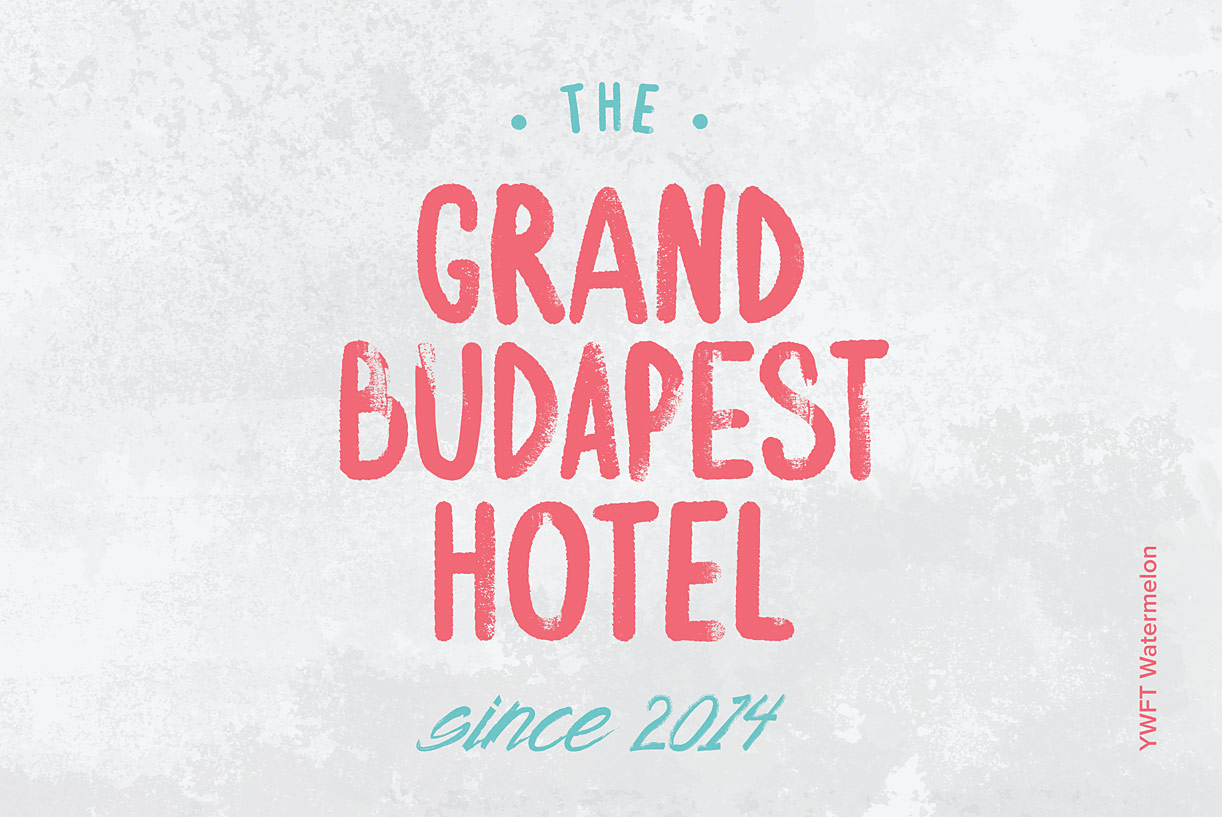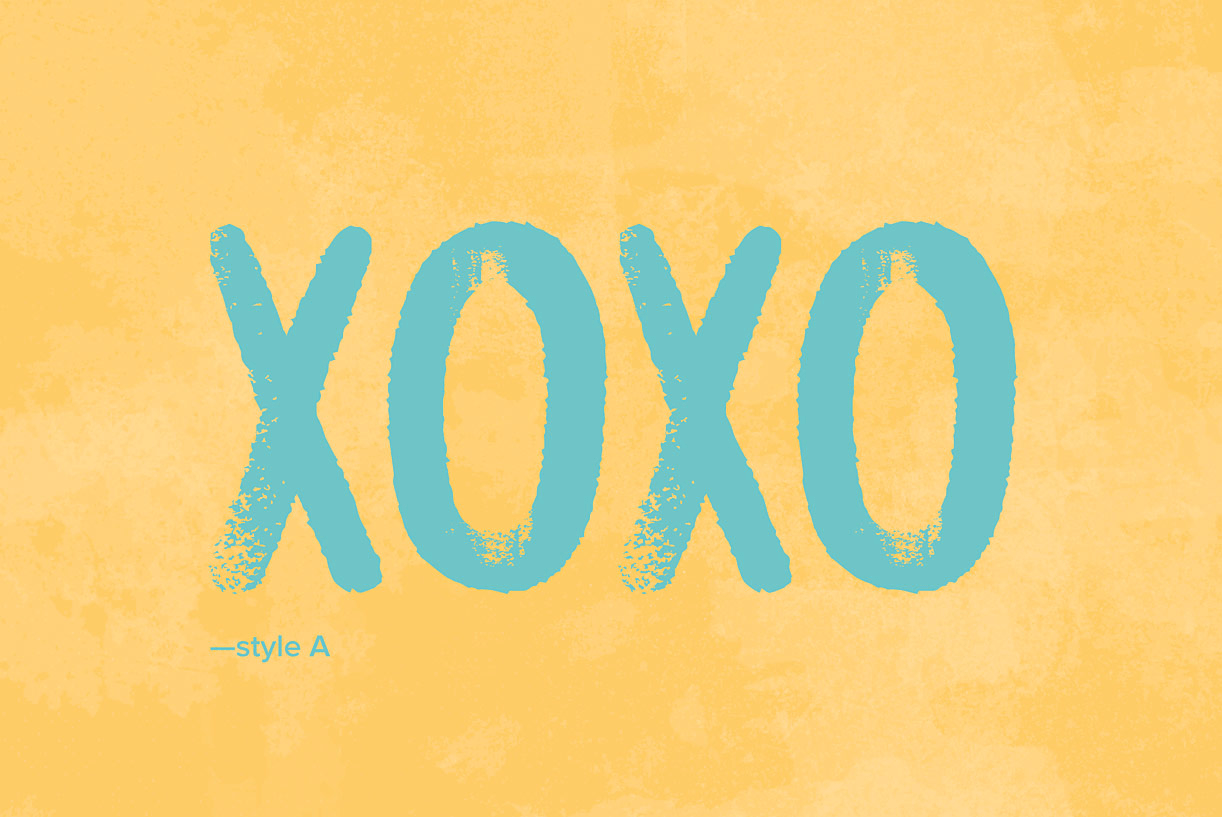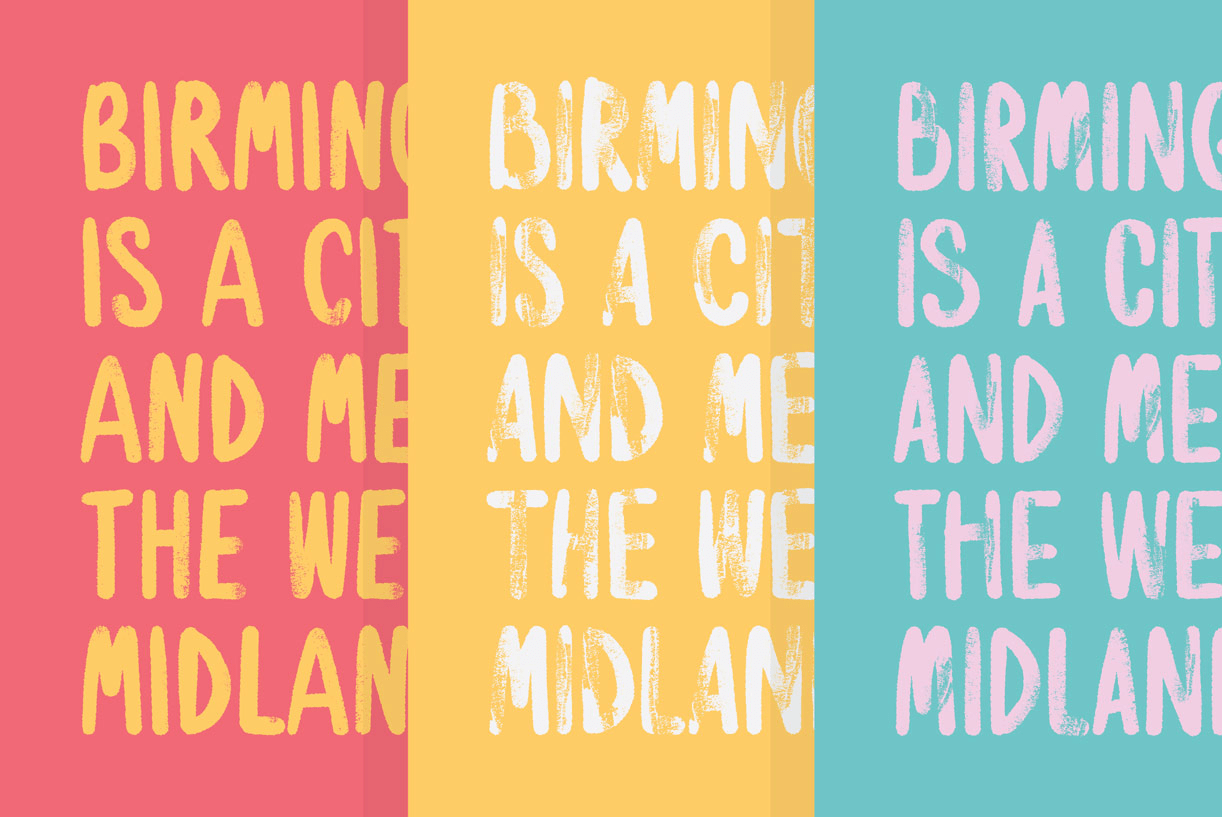
About YWFT Watermelon
Watermelon is sweet, playful and gritty, like a gummy bear with a mild case of road rash. (Dust it off and eat that bad boy because if you don\’t, we will.) Available in three variations of increasing distress, this all-caps type design is friendly with…